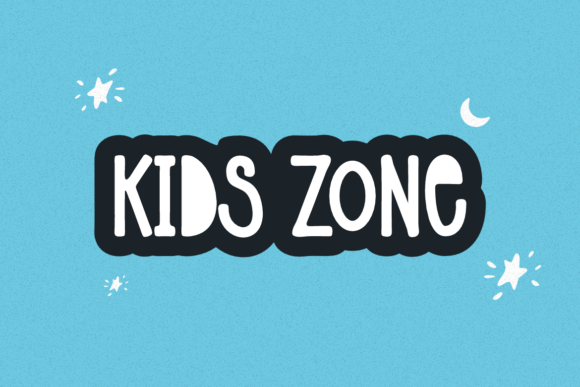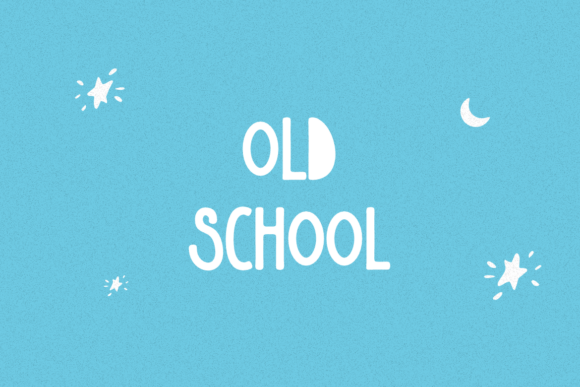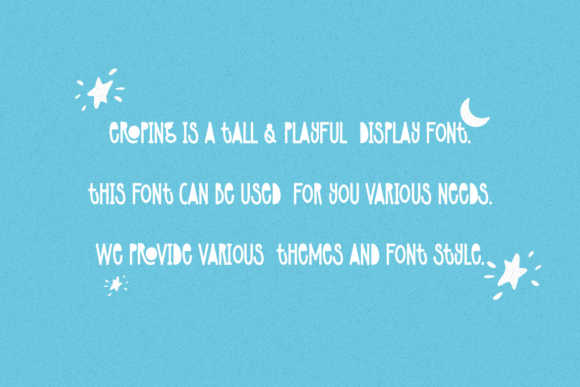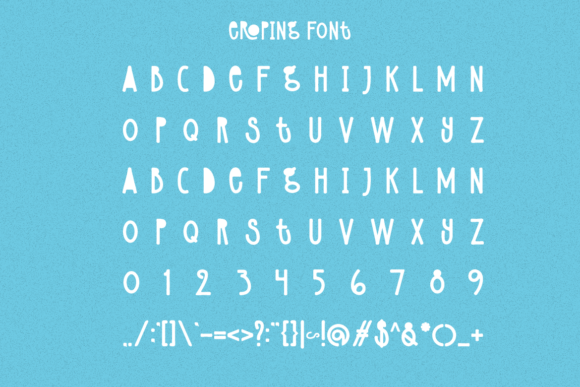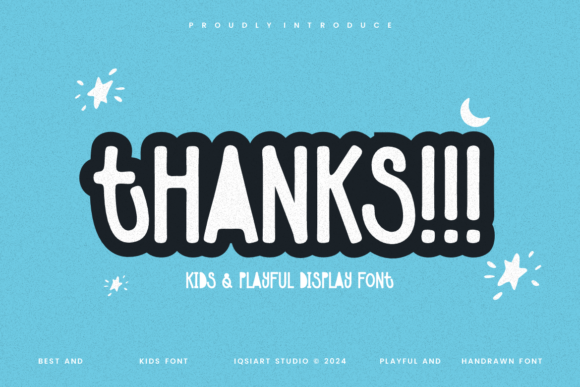
Eroping Font: Add a Dose of Playfulness to Your Kids-Themed Designs
Are you looking for a font that can add a touch of fun and quirkiness to your kids-themed designs? Look no further than Eroping Font! This delightful display font is specifically designed for use in children’s projects, such as posters, storybooks, learning materials, and branding. With its bubbly, hand-drawn look and cheerful character forms, Eroping Font is sure to capture the attention of youthful audiences and bring a smile to their faces.
The Characteristics of Eroping Font
Eroping Font boasts a range of characteristics that make it perfect for kids-themed designs. The font features:
• Thick outlines: The font’s thick outlines give it a bold and eye-catching appearance that’s perfect for posters, headings, and titles.
• Playful rhythm: The playful rhythm of the font adds a sense of movement and energy, making it ideal for designs that need to capture a child’s attention.
• Bubbly, hand-drawn look: The font’s hand-drawn look gives it a friendly and approachable feel that’s perfect for kids-themed designs.
• Cheerful character forms: The font’s character forms are designed to be cheerful and engaging, making it perfect for use in storybooks, learning materials, and other children’s content.
Uses for Eroping Font
Eroping Font is a versatile font that can be used in a wide range of kids-themed designs, including:
• Posters: Use Eroping Font to create eye-catching posters for children’s events, such as birthday parties, school plays, and charity events.
• Storybooks: Add a touch of whimsy to your storybooks with Eroping Font, perfect for children’s picture books, early readers, and chapter books.
• Learning materials: Use Eroping Font to create engaging and interactive learning materials, such as worksheets, activity sheets, and educational posters.
• Branding: Use Eroping Font to create a fun and playful brand identity for your kids-themed business or product.
Why Designers and Crafters Love Eroping Font
Designers and crafters love Eroping Font for a range of reasons, including:
• Easy to read: Despite its playful appearance, Eroping Font is easy to read, making it perfect for use in body text as well as headings.
• Highly versatile: Eroping Font can be used in a wide range of design projects, from posters and storybooks to branding and learning materials.
• Unique and eye-catching: Eroping Font’s unique and eye-catching design makes it perfect for designers and crafters who want to stand out from the crowd.
Tips for Using Eroping Font
Here are some tips for getting the most out of Eroping Font:
• Use it in combination with other fonts: Eroping Font pairs well with a range of other fonts, so don’t be afraid to experiment with different combinations.
• Experiment with different colors: Eroping Font looks great in a range of colors, so try experimenting with different hues and shades to find the perfect look for your design.
• Don’t be afraid to get creative: Eroping Font is a playful font, so don’t be afraid to get creative and try out new and unusual design ideas.
Eroping Font is a fun and quirky display font that’s perfect for kids-themed designs. With its bubbly, hand-drawn look and cheerful character forms, this font adds a dose of playfulness to posters, storybooks, learning materials, branding, and more. Whether you’re a designer, crafter, or DIY enthusiast, Eroping Font is a great choice for anyone looking to add a touch of whimsy to their designs.